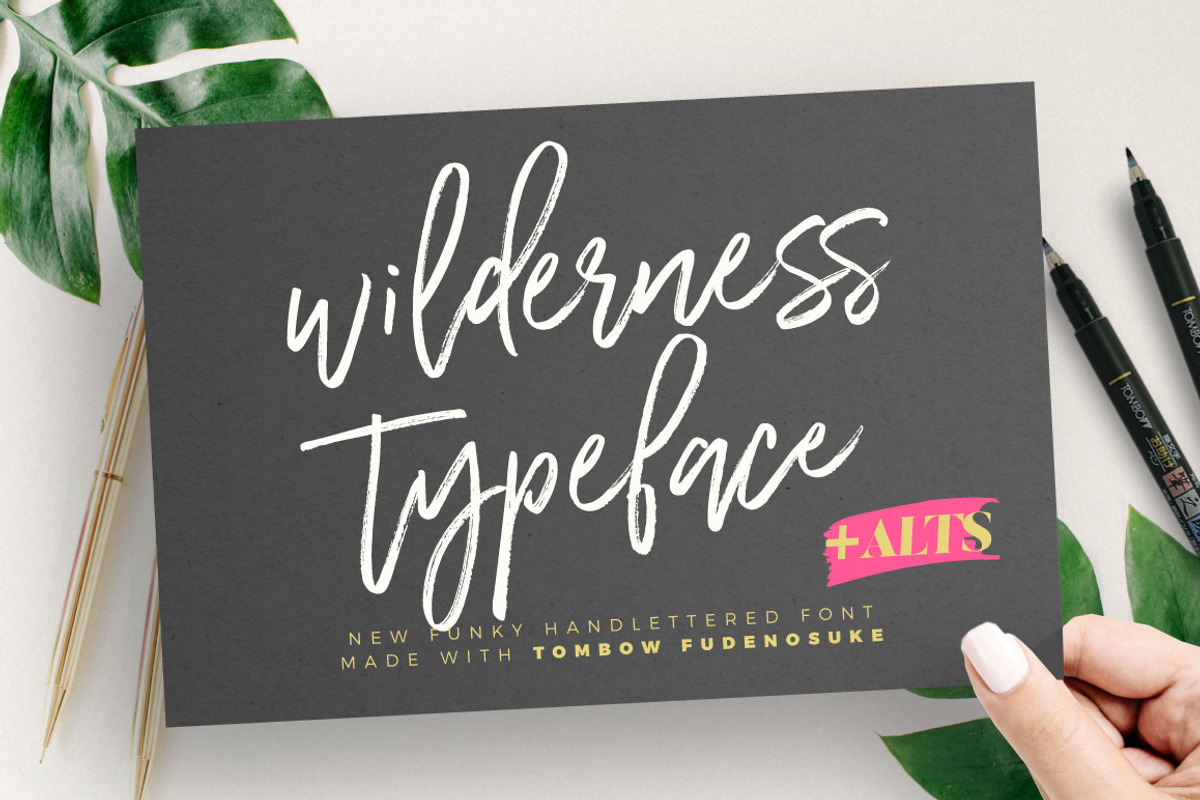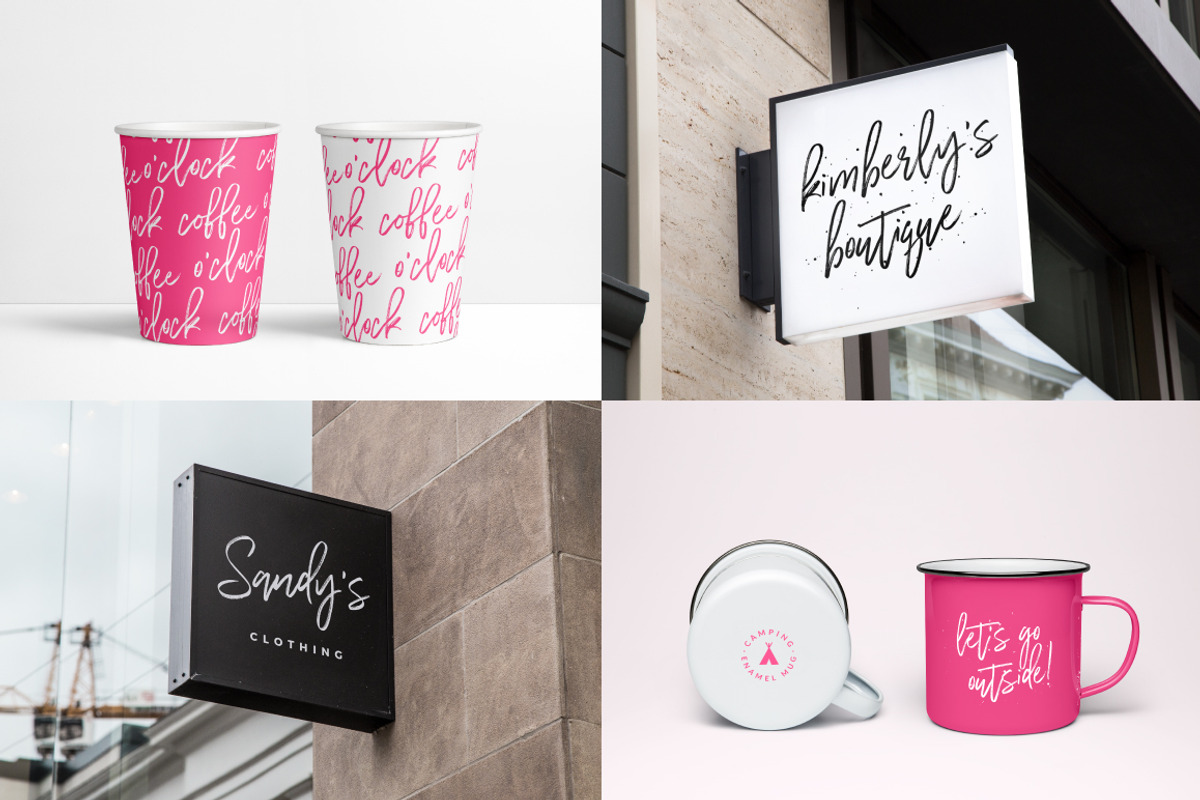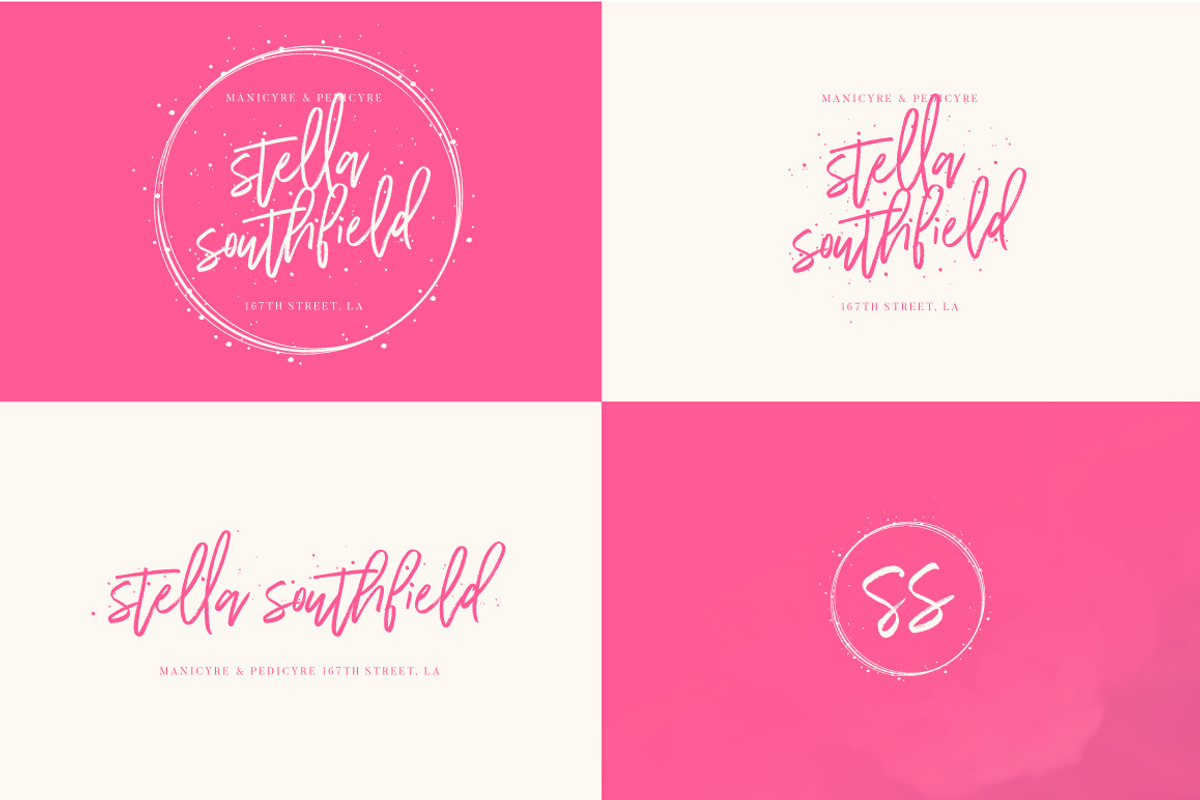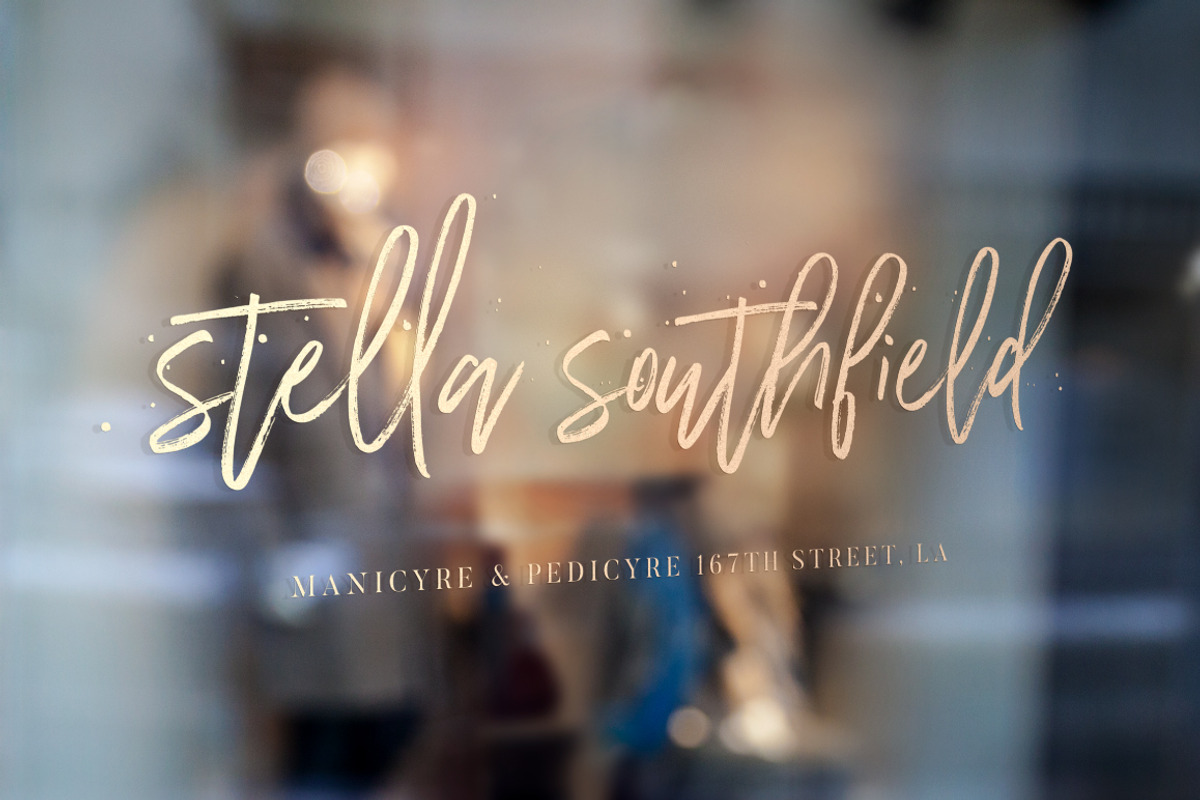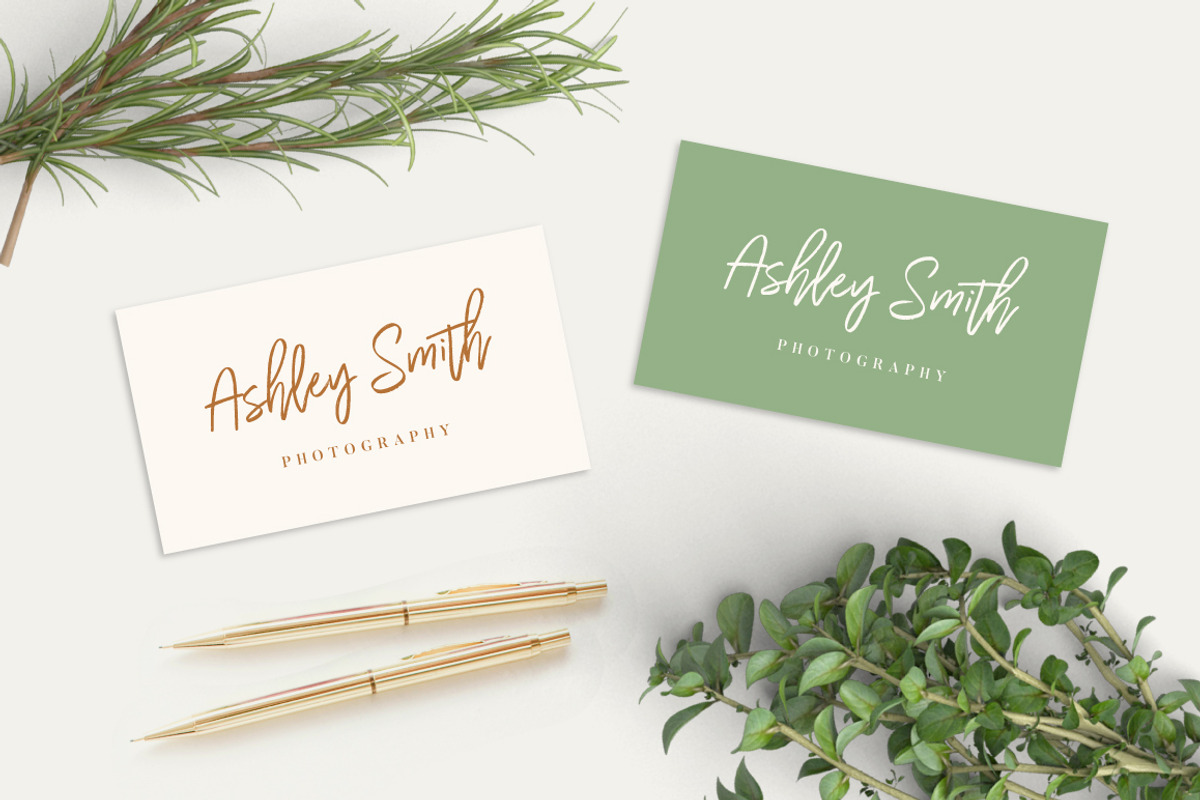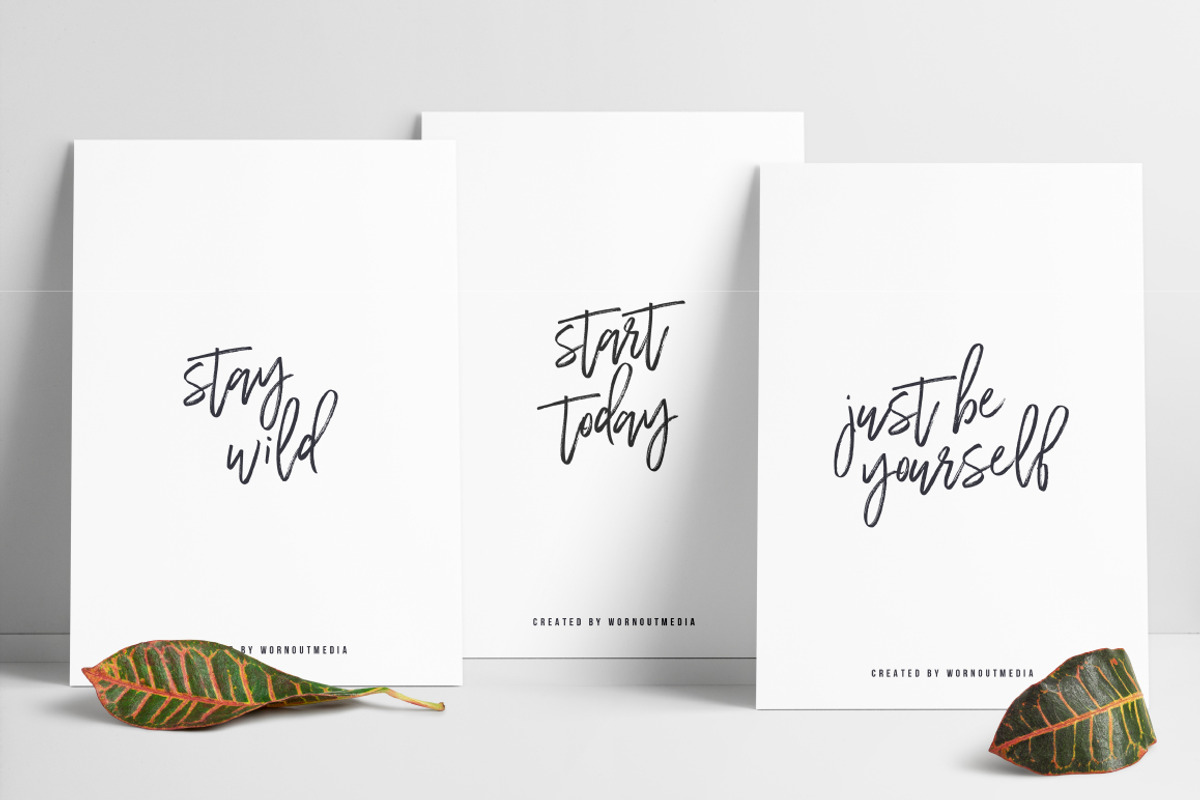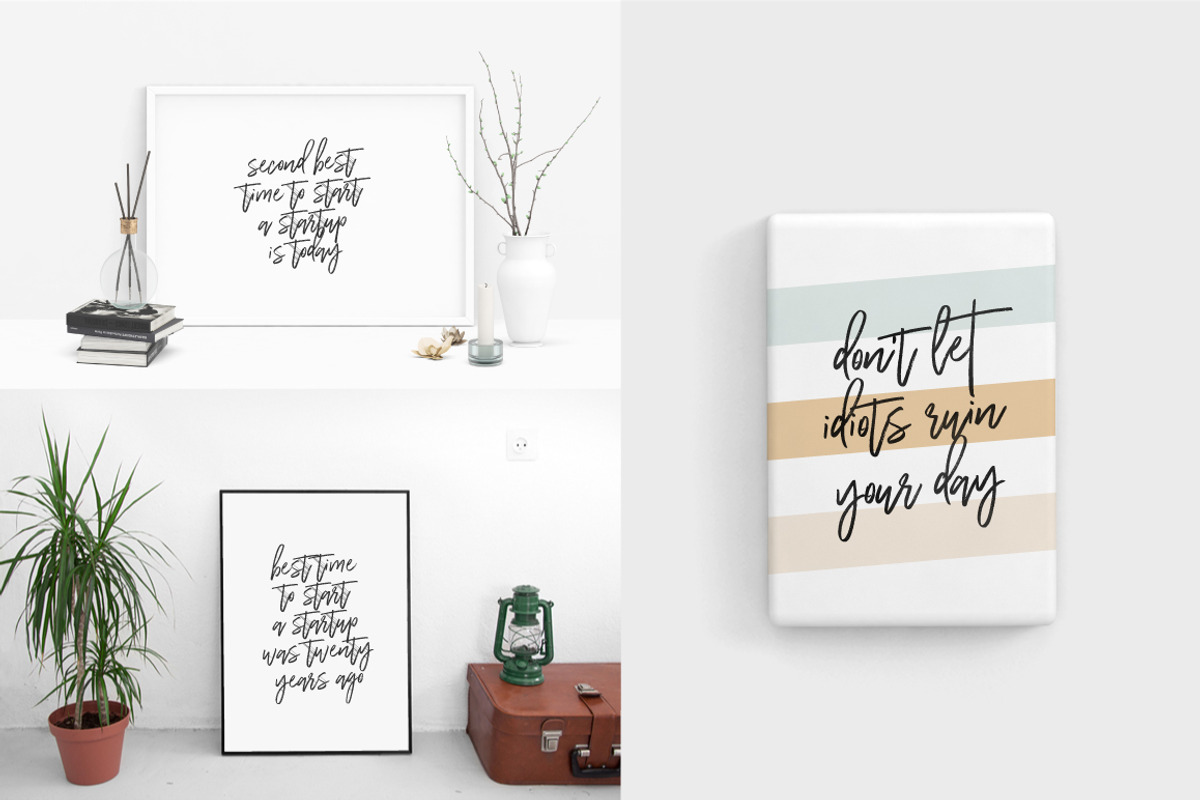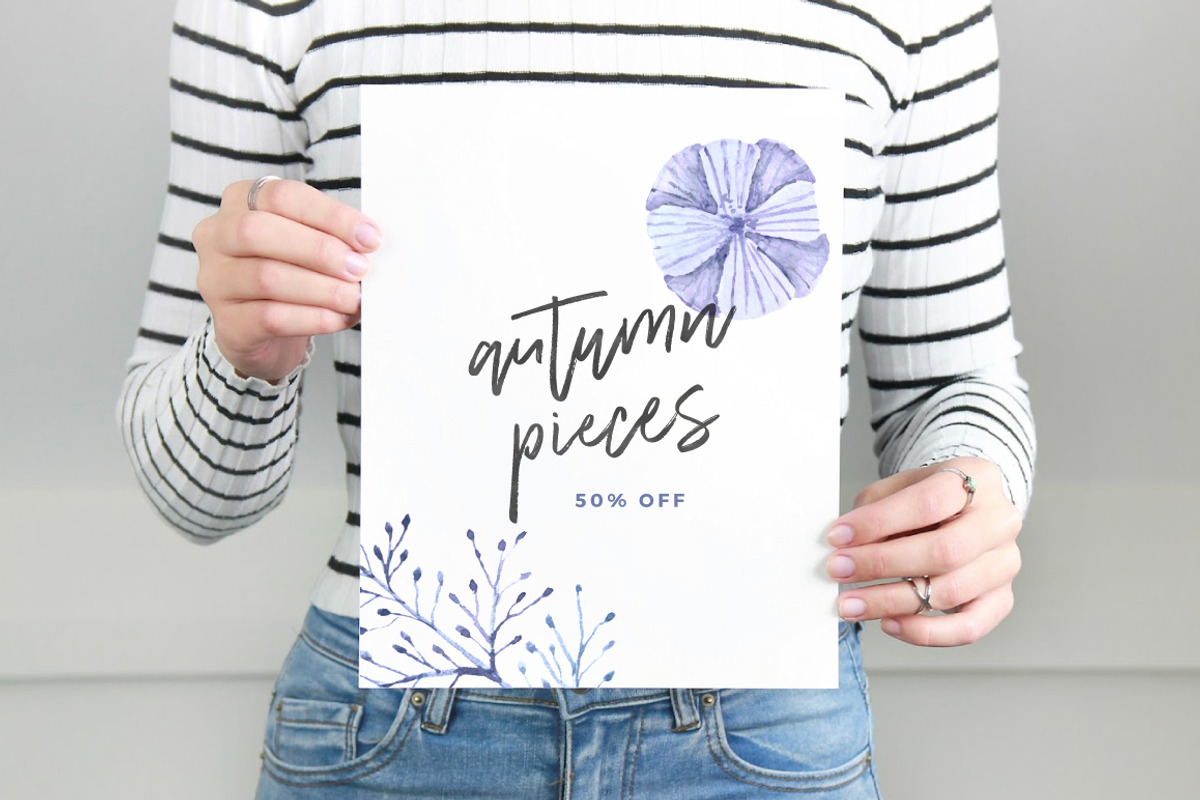
Wilderness Typeface
Wilderness Typeface by Mats-Peter Forss is a font selected for branding, posters, packaging, typography.
- It's authentically handlettered font with lowercase alternates.
- Alternates for lowercase characters.
- WILDERNESS TYPEFACE ALT - Alternates for lowercase characters.
Why Wilderness Typeface is worth a look
Wilderness Typeface by Mats-Peter Forss fits naturally into Branding, posters, packaging, typography.